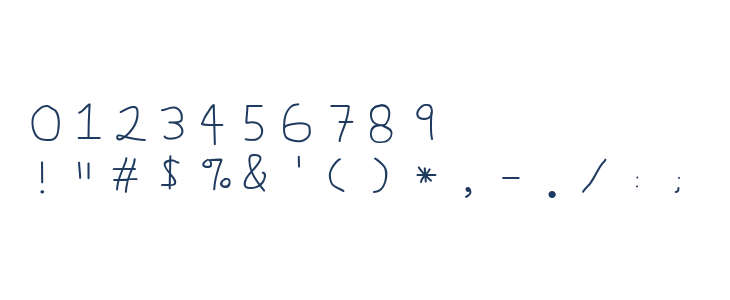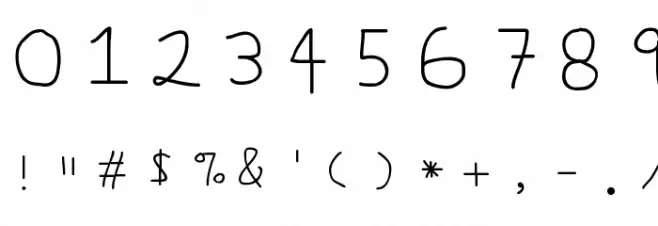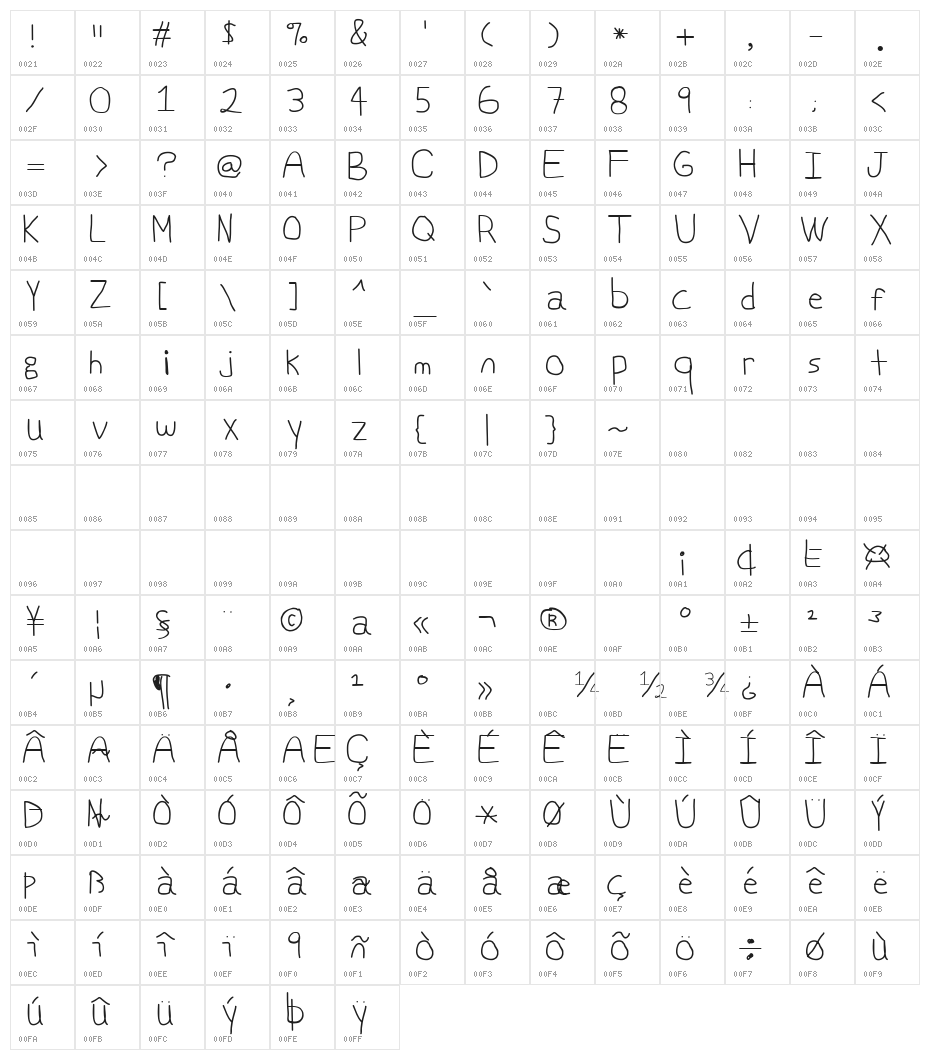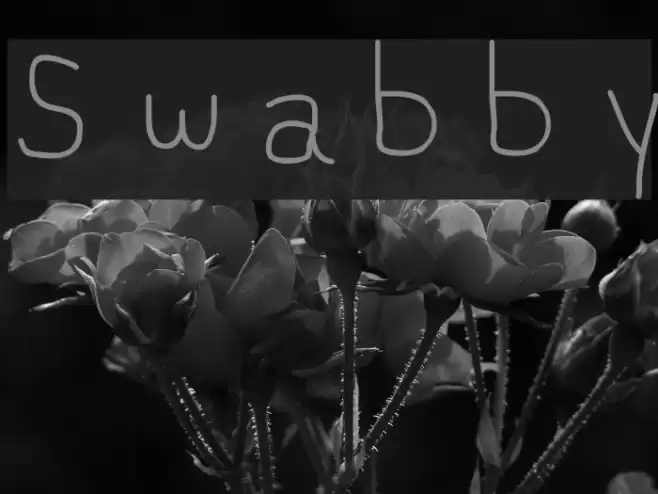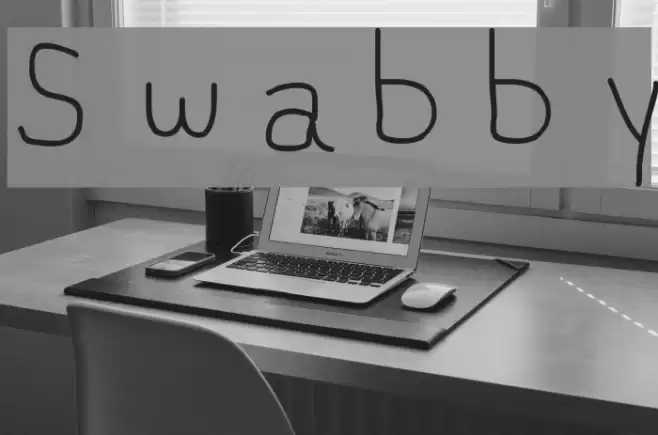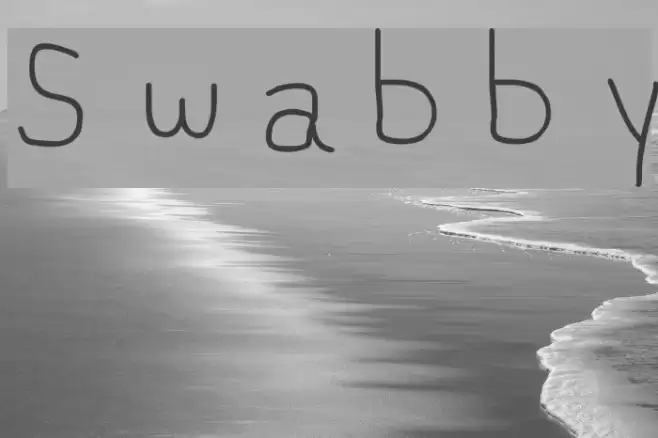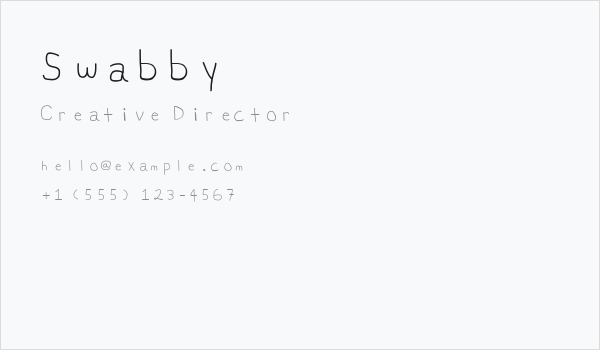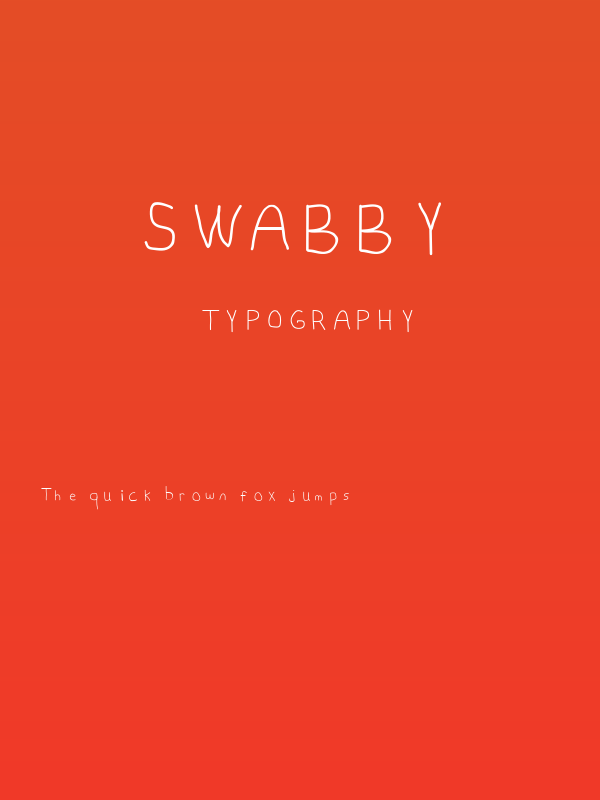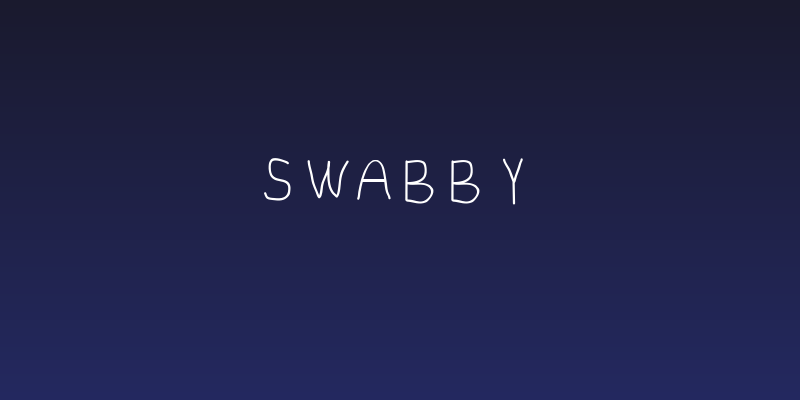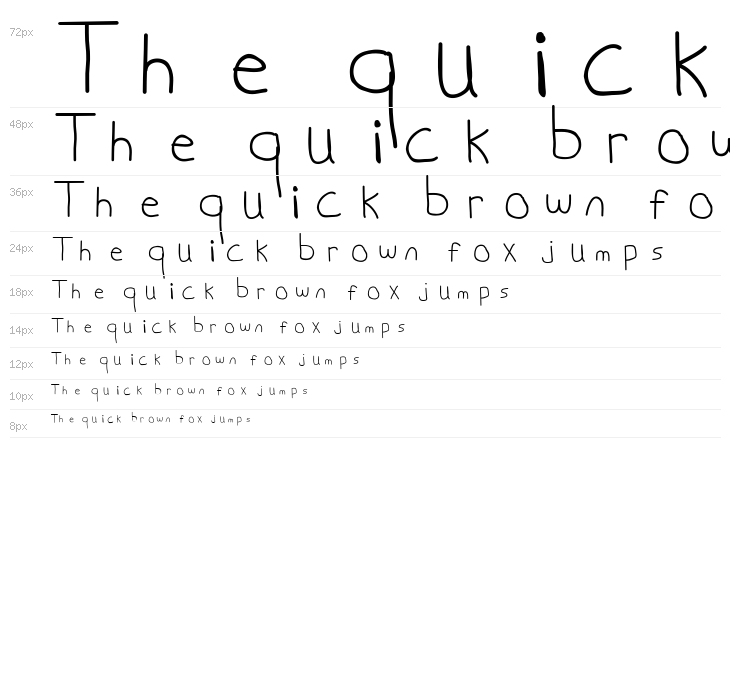
Swabby Font
Swabby Description
This font features a playful and casual handwritten style, characterized by its irregular and slightly uneven strokes. The letters are formed with a loose, free-flowing structure, giving it a whimsical and informal appearance. The uppercase and lowercase letters maintain a consistent style, with rounded edges and a slightly tilted orientation, adding to its charm. The numerals and special characters follow the same playful design, making it suitable for creative and lighthearted projects. The overall look is approachable and friendly, perfect for conveying a sense of fun and spontaneity.
| Proposed Projects | Ideal for children's books, greeting cards, playful branding, and casual invitations. |